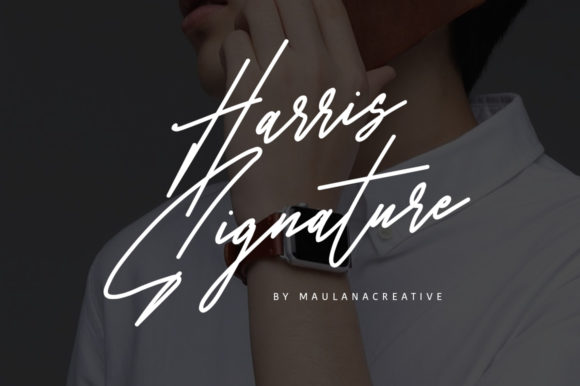
Behold, Harris Signature Font - a script font that dances with timeless elegance and contemporary charm. This exquisite typeface, crafted by the visionary Maulana Creative, is not just a font; it's an artistic gateway to transforming your digital creations into masterpieces.
Imagine your Instagram bio adorned with Harris Signature's graceful strokes, captivating your audience with a touch of sophistication and originality. This font's captivating curves and dynamic flourishes breathe life into your words, making every post a visual delight.
Whether you're a creative entrepreneur, blogger, or social media maven, Harris Signature is your key to unlocking a world of creative possibilities. Its versatility knows no bounds, effortlessly adapting to logos, branding, wedding invitations, and any project that craves a touch of elegance.
With Harris Signature, you'll find yourself immersed in a realm of beauty and creativity. Its meticulous design ensures effortless readability, making your content a joy to consume. Experience the joy of crafting social media posts that captivate, blog articles that inspire, and marketing materials that convert.
Harris Signature is more than just a font; it's an investment in your creative pursuits. Its timeless appeal ensures that your creations will remain relevant and captivating for years to come. Join the ranks of creative visionaries who have embraced the allure of Harris Signature and witnessed their creative endeavors soar to new heights.